Is there a way to edit the symbols or define the font for the four Jazz Ornaments under the ‘Remove’ button in the Ornaments Panel? Fonts from NorFonts including BopMusic have an alternate “brassFlip” glyph (U+E5E1) in place of the “brassJazzTurn” glyph (U+E5E4).
Adding to my confusion is that “shake” is name in common usage for the SMuFL “brassJazzTurn” symbol and the Dorico Popover for the symbol is in fact “shake” and not “jazzturn” or something similar.
Is 'jazz turn" used instead of “shake” outside of the US and is there a reason Dorico and SMuFL “disagree” in the naming?
It’s not currently easy to change that symbol, I’m afraid, since it’s (arguably incorrectly) categorised as a playing technique in the library, so you can’t edit it in the Music Symbols dialog. This is something we can change in future, so I’ve made a note to do that.
Honestly I can’t remember why there’s a disconnect between the name of the glyph when I added it to SMuFL years ago and the name we chose when we later added it to Dorico. I imagine one of our beta testers requested the change, but I’m afraid I don’t remember!
That makes sense and it does seem like making those four symbols Ornaments instead of Playing Techniques would simplify the user experience. I’ll see if I can reach out to the font designer re the shake symbol.
Is the “shake” vs. “jazz turn” terminology something SMuFL would consider changing to better align with common usage?
We can change the human-readable glyph descriptions for glyphs in SMuFL, but not the canonical names.
I see. It doesn’t matter to me, but seems to have created some confusion with the font designer as they’ve used a “flip” or “jazz turn” instead of a “shake”.
Bravura shows a Shake symbol, BopMusic shows a Turn… I don’t know how that happened when I designed my fonts…
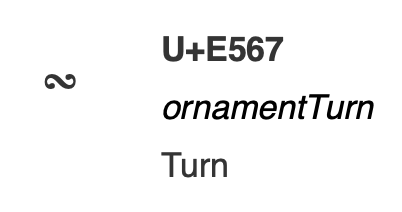
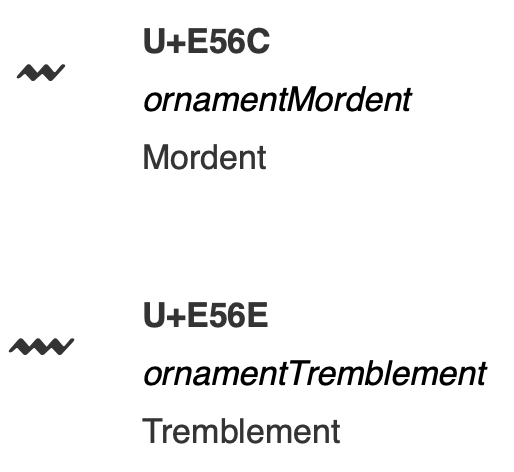
Shake is Tremblement in french which is SMuFL code point: U+E56E
In Jazz arranging, it is common to encounter a Turn (also called a ‘Flip’) symbols like:
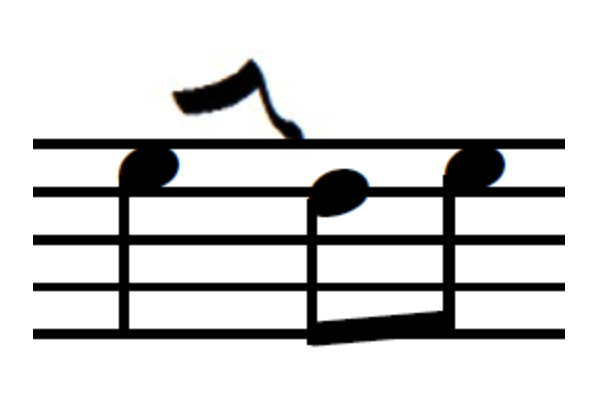
Instead of the common engraved Turn like:
By the way you can still customise that in Engrave Mode/ Music Symbols…
That would be great. This is one of those little niggling items that is just not right with Dorico. If your font can resolve the issue, beautiful.
And just for the record, I think the placement as you show it is exactly what people expect in jazz charts. I hope Dorico would place the flip in that position by default.